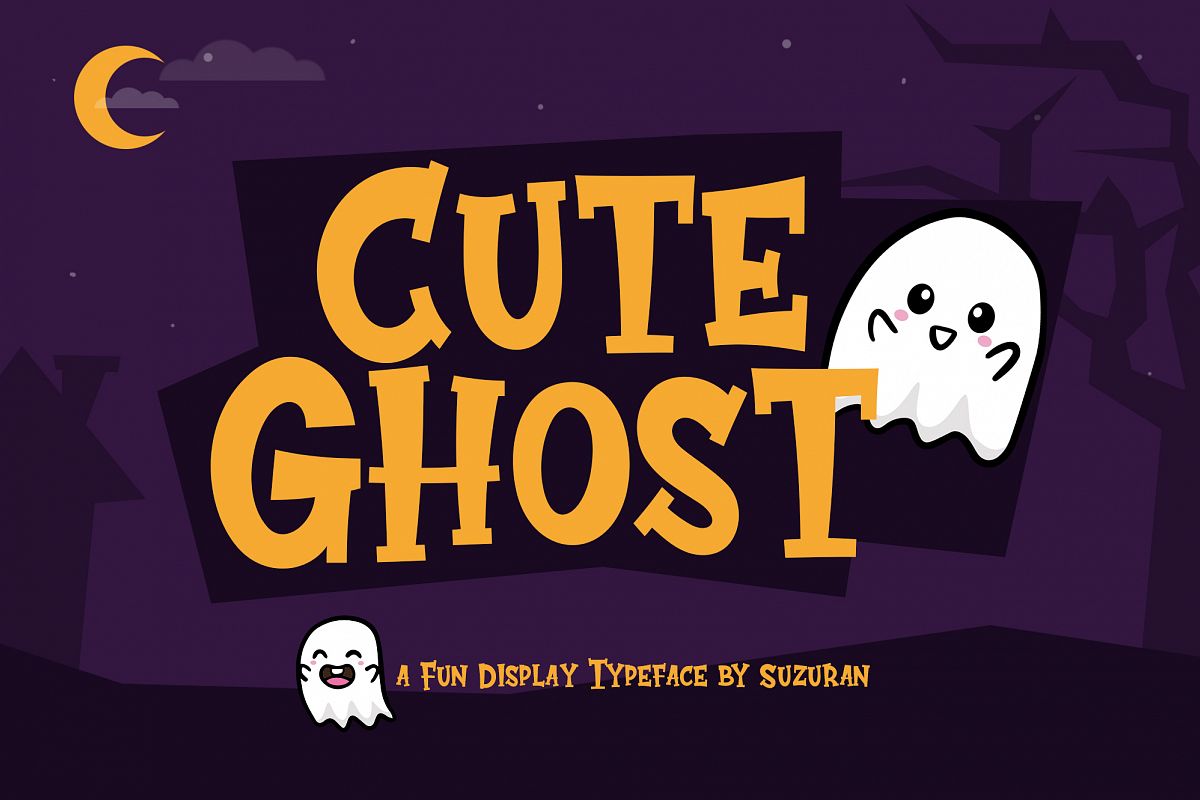
The Cute Ghost Display font with halloween theme for your fun project. Cute Ghost Display font suitable for logo, branding, greeting card, branding, poster and any design that you create.